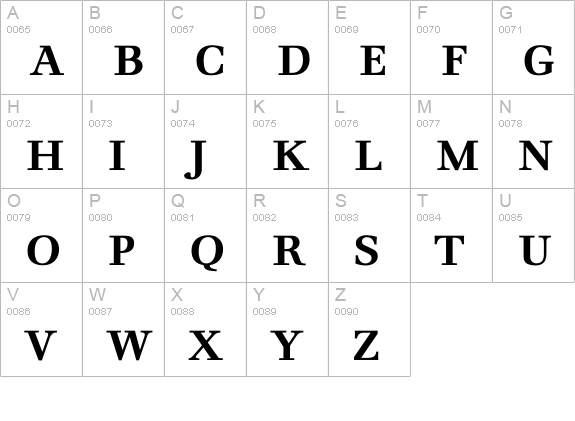
Dedica DaMa Bold Font Details
Dedica DaMa Bold is a strong, high-contrast variant in the Dedica typeface family \xE2\x80\x94 well suited to headlines, attention-grabbing titles, and strong calls-to-action.
Dedica DaMa Bold is a striking and versatile font that exudes elegance and sophistication. With its bold and commanding presence, this typeface is perfect for making a statement in headlines, titles, and branding materials. The bold strokes and clean lines of Dedica DaMa Bold give any design a modern and refined look. What sets Dedica DaMa Bold apart is that it is available for free download at FontsMarket.com. This means that you can easily access and use this stunning font in your projects without any cost. Whether you're designing a poster, logo, website, or any other creative project, Dedica DaMa Bold is a fantastic choice that will elevate your design to the next level. Download this beautiful font today and unleash your creativity with Dedica DaMa Bold.